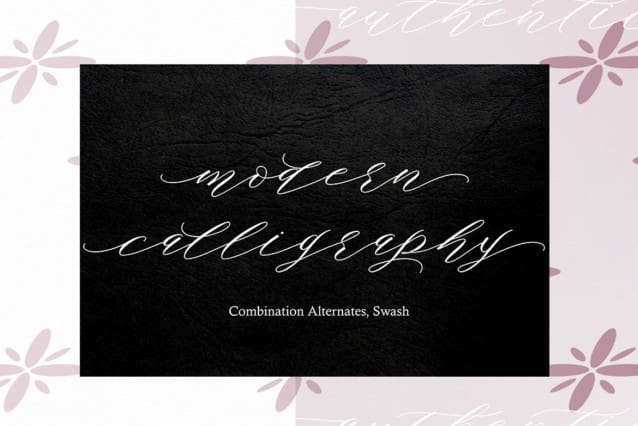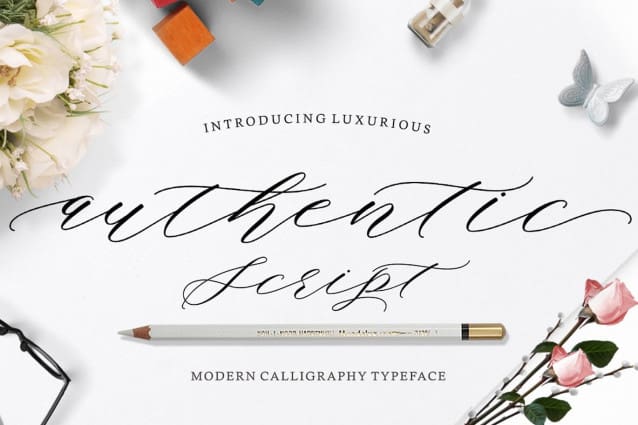
Authentic Font
Authentic Font is a charming modern calligraphic script, I hope you are interested in this font, dynamic and pretty with swastikas. Can be used for many purposes, such as title, signature, Logo, wedding invitations, letterhead, signage, labels, newsletters, posters, badges, etc.